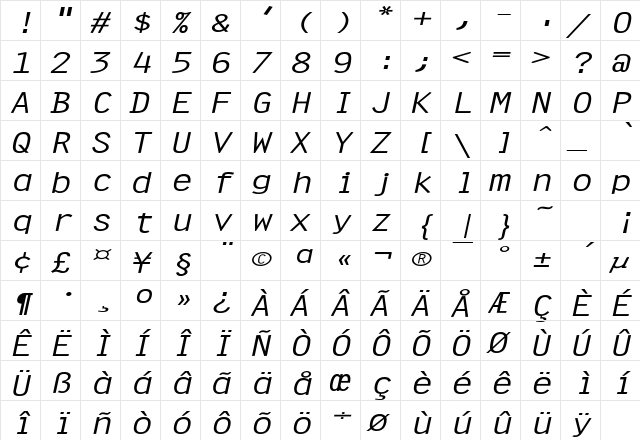
OratorExtended Oblique
Design Context for OratorExtended Typeface
OratorExtended offers clean, dependable letterforms without strong stylistic allegiance, making it a practical choice for designers who need flexibility. Its italic angle brings a sense of urgency and motion to the letterforms.
Pro Tip: Try OratorExtended for annotation and caption copy alongside an upright companion — the contrast in angle creates a dynamic but ordered typographic system.